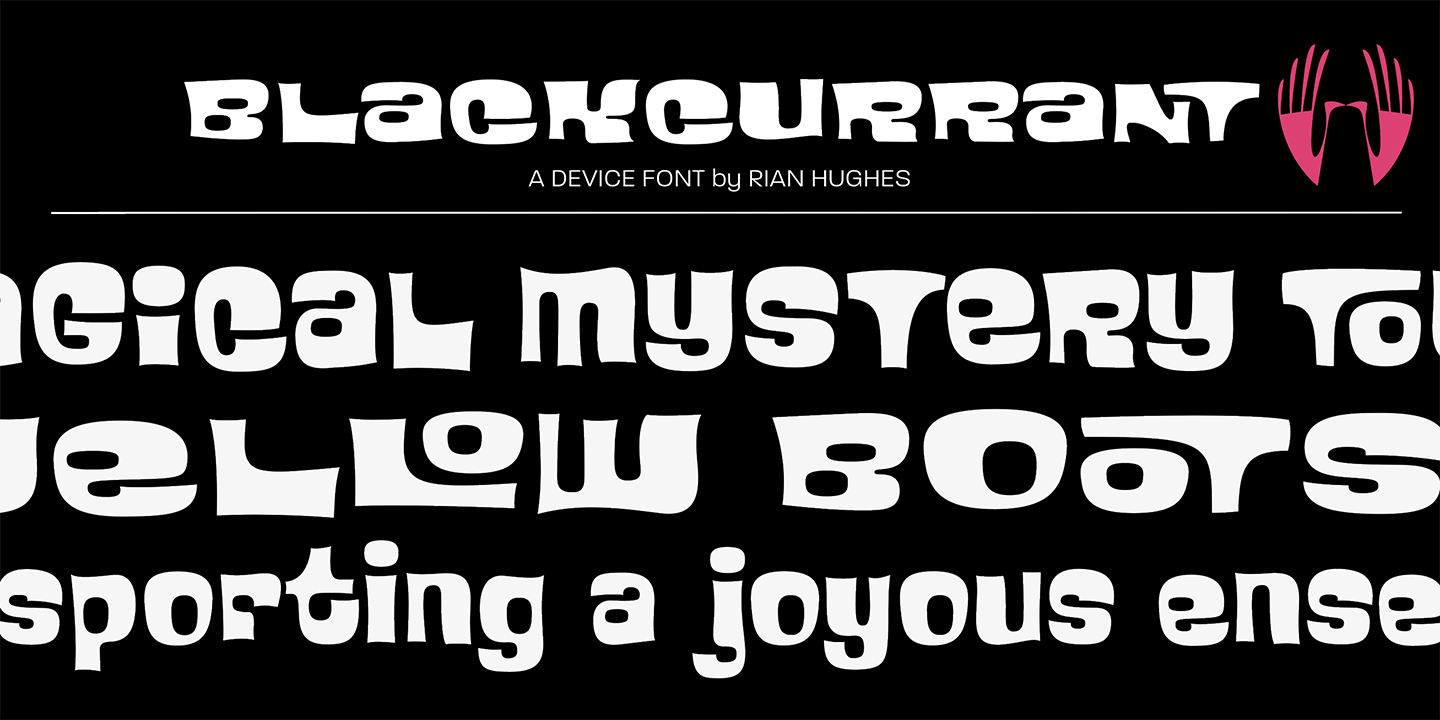
Blackcurrant Font is ideal for gourmet berry farms, artisan jam producers, luxury fruit juice brands, sophisticated wine labels, premium health food packaging, upscale farmers market signage, gourmet cooking magazines, artisan bakery branding, fine dining restaurant menus, organic superfood marketing, botanical garden exhibitions, and elegant culinary lifestyle brands.
This font is exciting because it captures the rich sophistication and intense flavor complexity of blackcurrants, featuring deeply elegant letterforms that pulse with the same concentrated richness and sophisticated tartness found in these precious dark berries that have been treasured by European gourmets for centuries as both culinary delicacies and powerful superfoods packed with antioxidants and intense flavor that transforms simple desserts into gourmet masterpieces. The luxuriously crafted character design embodies both the natural intensity of wild berry flavors and the refined elegance of gourmet culinary traditions, creating typography that feels both naturally powerful and sophisticatedly refined. Each letter radiates the kind of concentrated flavor and elegant intensity that transforms ordinary text into gourmet expressions worthy of the finest culinary experiences and premium natural products.
The Blackcurrant Font family includes regular and bold weights with complete character sets featuring gourmet-inspired numerals, sophisticated punctuation marks, and decorative elements reminiscent of berry clusters, vine patterns, gourmet packaging designs, and elegant botanical illustrations. Advanced versions may offer additional stylistic variants with enhanced berry effects, alternate characters that create natural flowing connections, and sophisticated ornaments that celebrate the artistry of gourmet cooking and premium natural food traditions.
Whether you're developing gourmet food branding, creating premium culinary marketing, or designing sophisticated natural product content, Blackcurrant Font Free Download provides the rich sophistication and gourmet elegance your project needs to appeal to discerning audiences who appreciate the intense flavors and health benefits of premium berries and artisan culinary craftsmanship. This typeface transforms ordinary text into gourmet invitations that celebrate both the natural intensity of superfoods and the sophisticated artistry of gourmet cooking. The font's gourmet character makes it perfect for brands targeting sophisticated food enthusiasts and health-conscious consumers. Gourmet food marketers and artisan producers will appreciate how this font brings authentic berry sophistication to their work with its genuinely rich and elegantly intense character that captures the essence of gourmet natural foods.